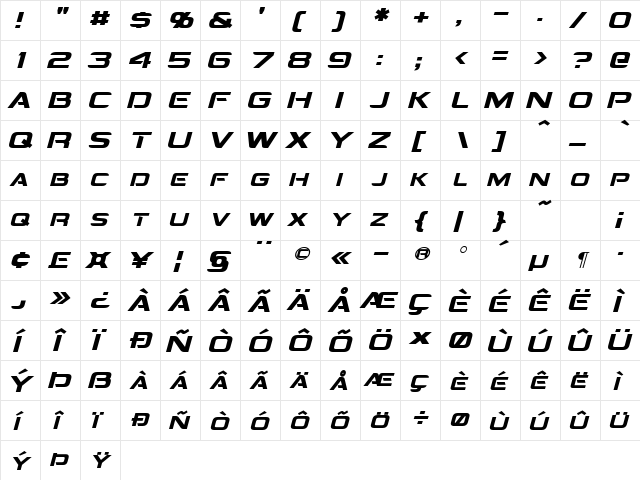
Montalban Italic
Design Context for Montalban Typeface
Montalban is a composed and adaptable typeface that performs quietly and consistently across a wide range of design contexts. The slanted form adds forward momentum and visual energy.
Pro Tip: Use Montalban for emphasis, pull quotes, and subheadings where its slanted energy can add rhythm to the layout.